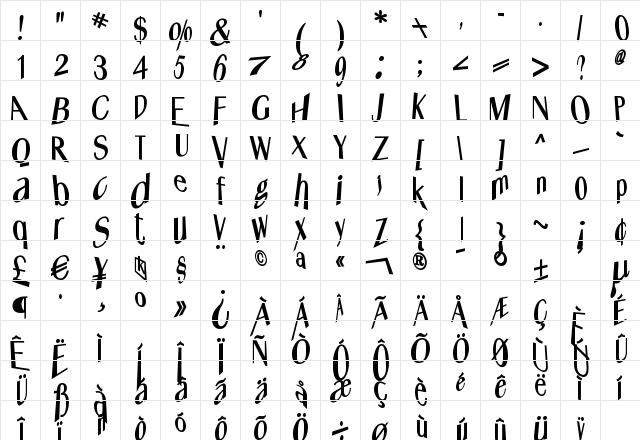
WhatsHappened Regular
Design Context for WhatsHappened Typeface
WhatsHappened is a composed and adaptable typeface that performs quietly and consistently across a wide range of design contexts.